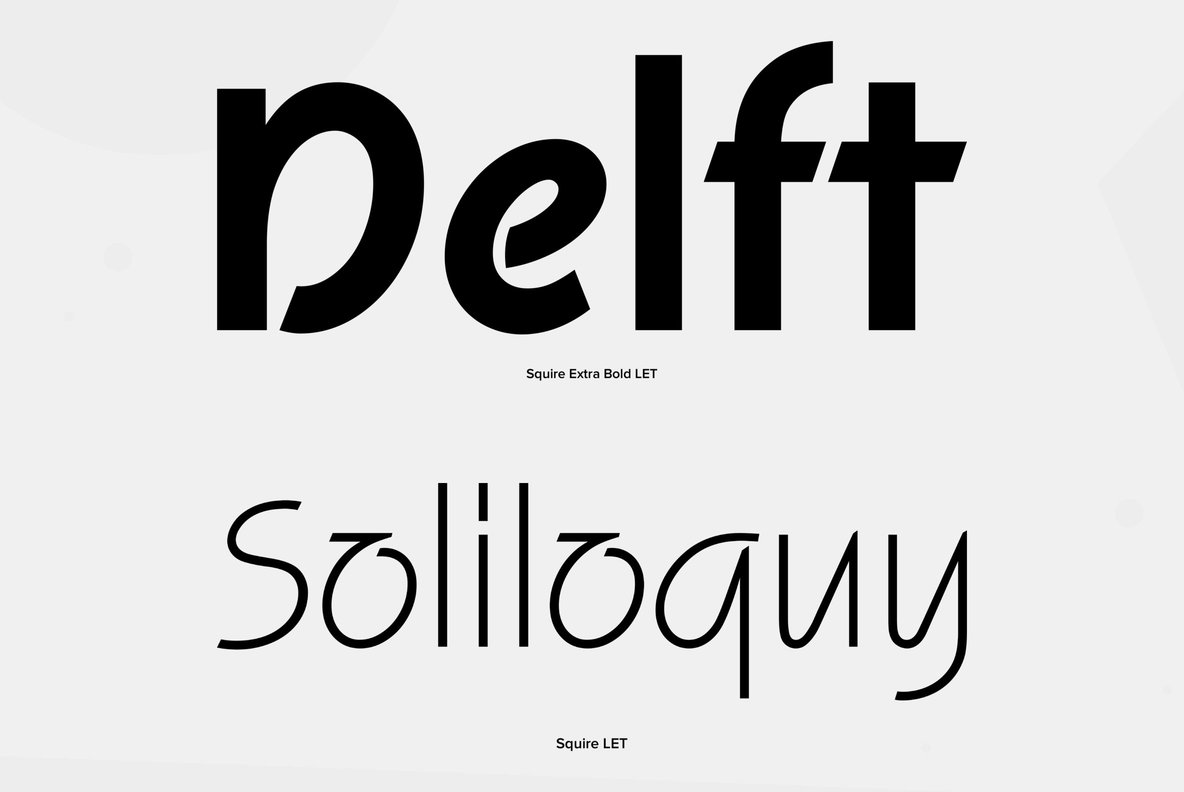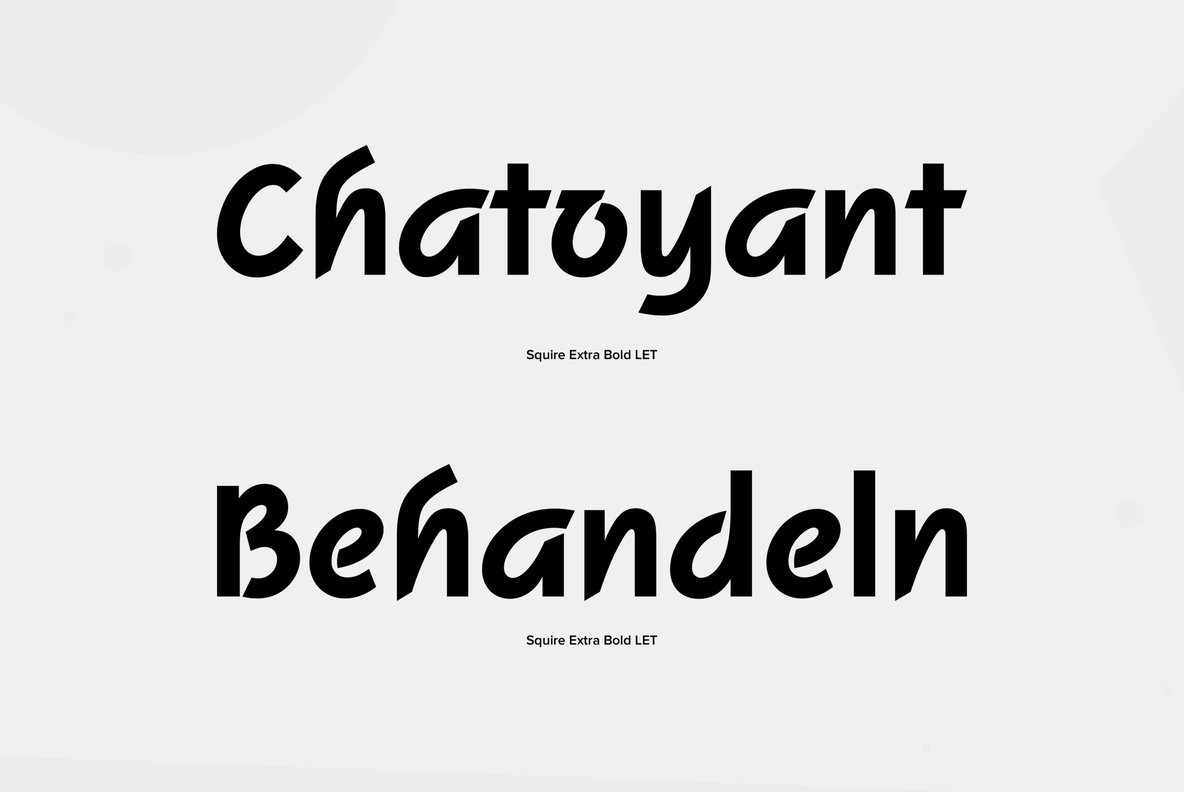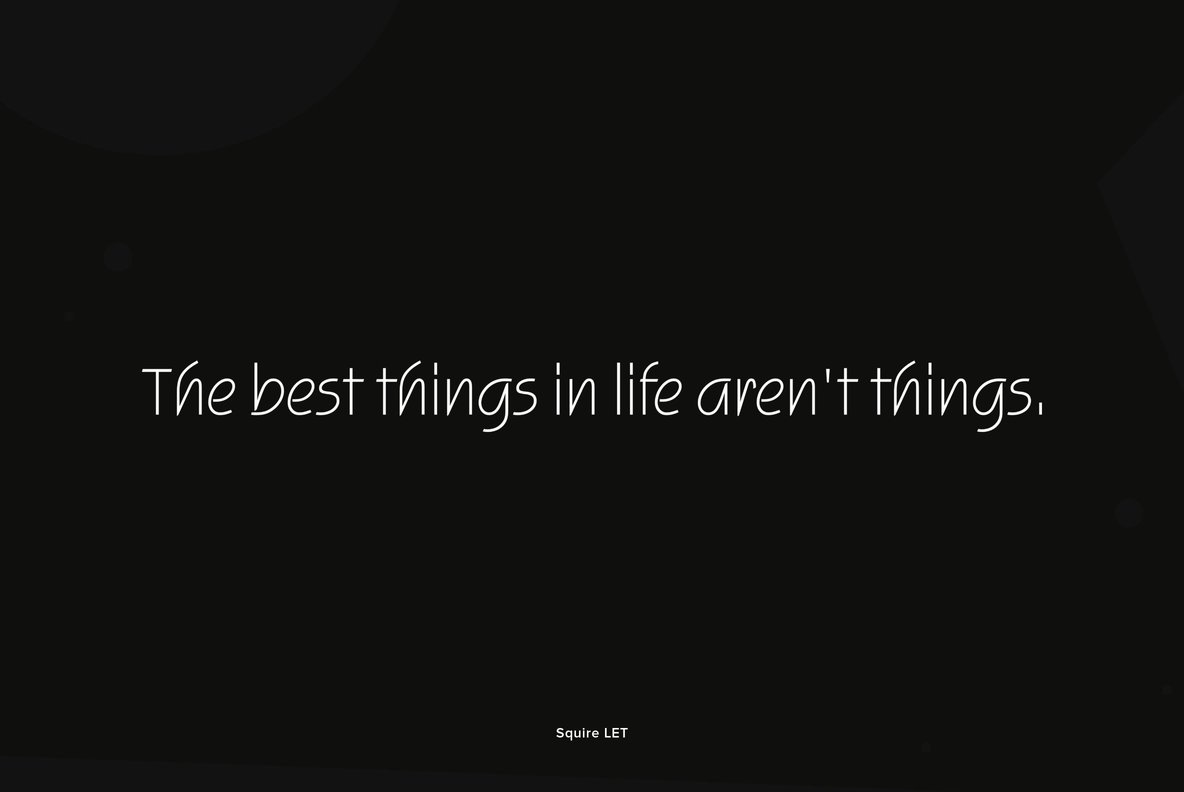
Squire Font Family
The letters of this unusual sans serif typeface offer a blend of formal and informal construction. Legible in large and small sizes, Squire is versatile across a wide variety of advertising applications. It’s a great choice for work such as greeting cards, menus, and personal stationery where a familiar, warm approach is desired. Created by Austrian typographer Michael Neugebauer.